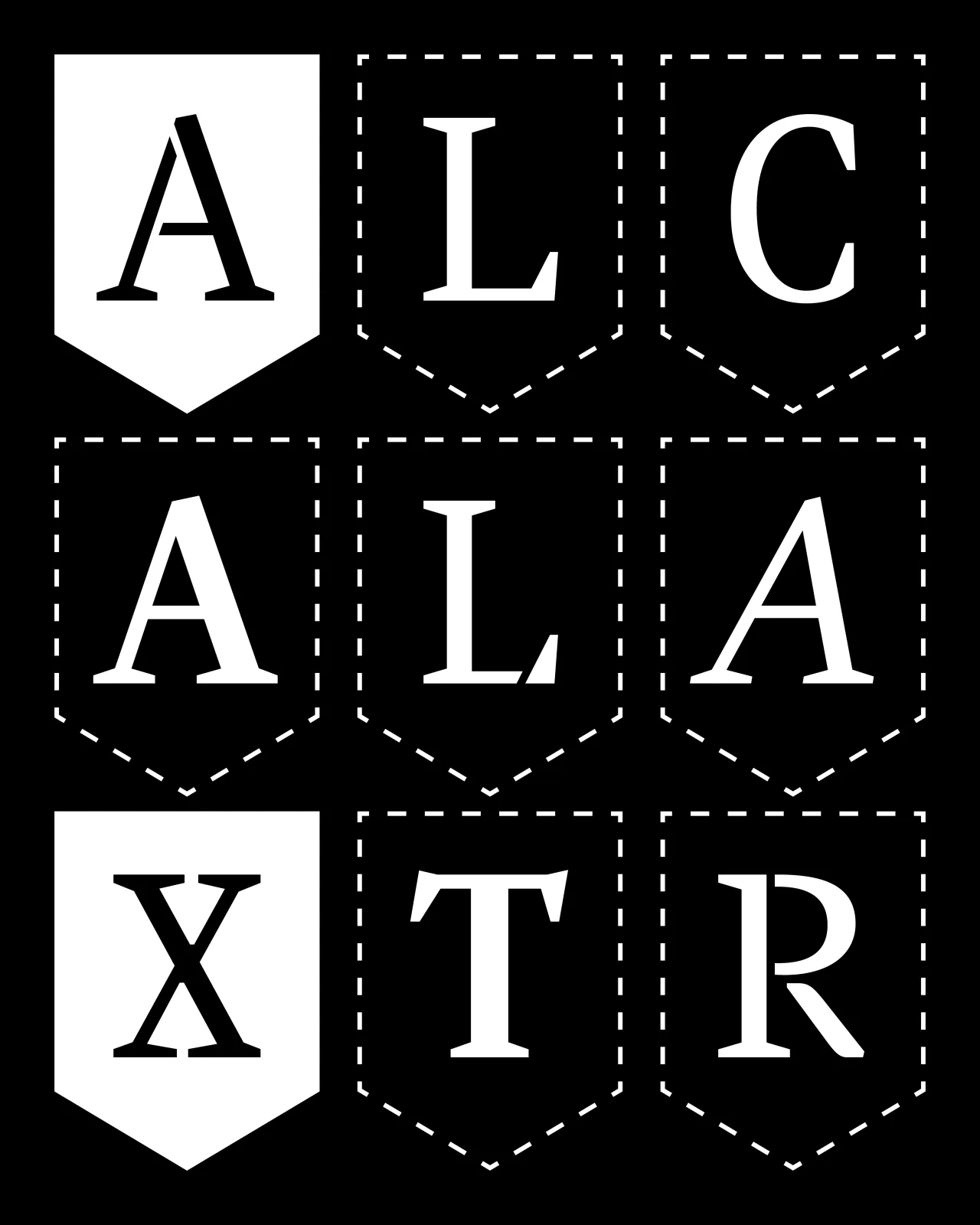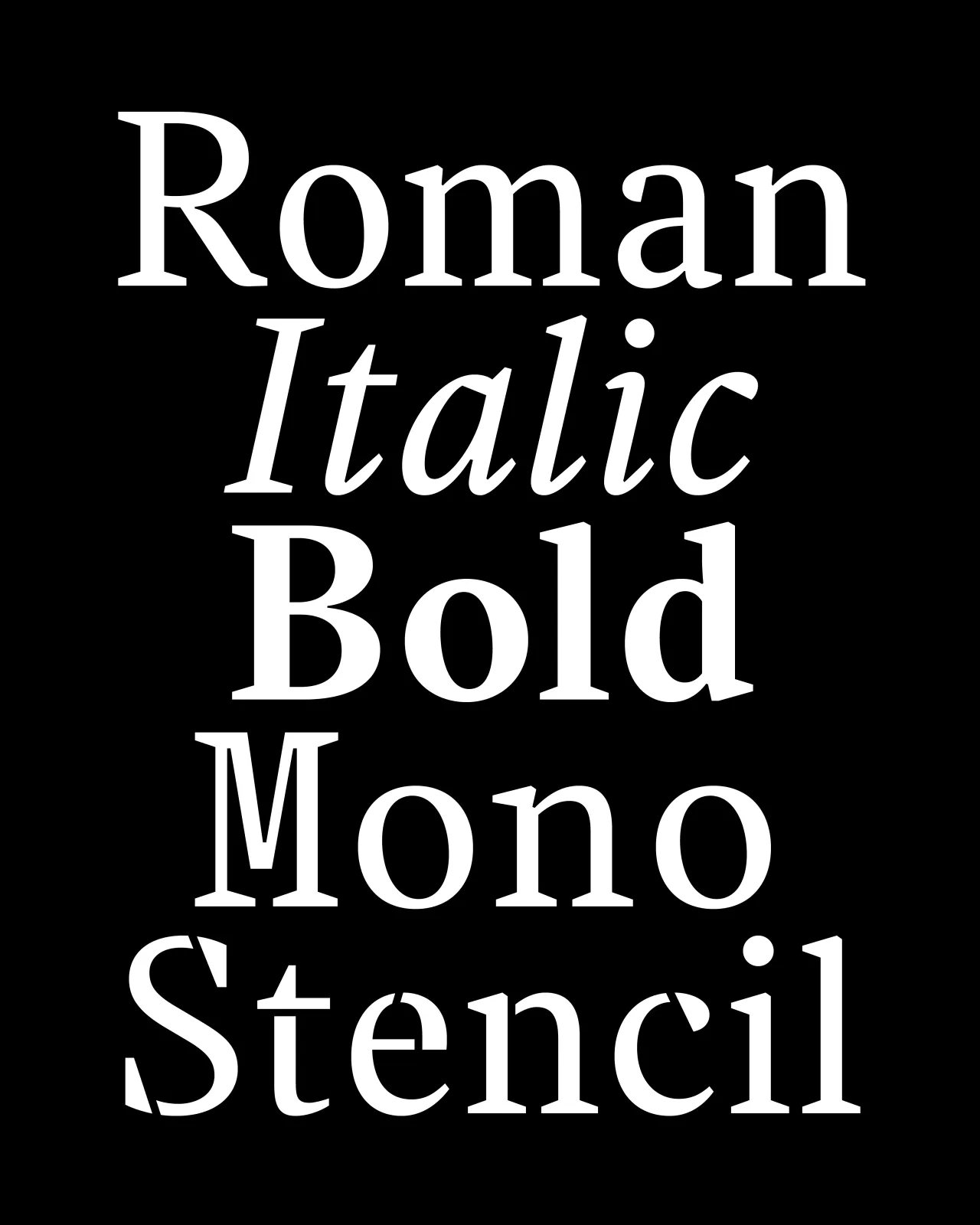
The best new typefaces for May 2026
May's new fonts have something to say, and the typographic vocabulary to say it—at any size, weight or width you care to mention.
Gotham Variable by Sara Soskolne
In global terms, much of 2026 has felt like we're teetering on the edge of a precipice. And yet at the same time the world keeps turning, and type designers are still doing what they've always done: making life that little bit better, one character at a time. And May's new releases have a pleasing breadth, from a 500-year-old Bible to a Times Square billboard, a twig in a Swiss forest to a plate of Spanish biscuits. (Yes, really.)
Dalton Maag's Deiverson Ribeiro serves up a food-themed Brazilian script with a jazz-like swagger. Sproviero pushes Art Deco into new territory. But the month's biggest moment arguably belongs to a typeface that's been around for a quarter of a century. Yes, Gotham is turning 25, and Monotype is celebrating with a variable evolution that further broadens what it can offer.
Elsewhere, Jean François Porchez launches the screen-optimised serif he started designing in 2021, Grilli Type releases its monospace industrial tool, and a botanical display font arrives from Switzerland with a philosophy borrowed from Japanese gaming. All in all, fun times are forging ahead in typeland, and there's plenty of fresh inspiration for designers to check out.
1. GT Mechanik by Shiva Nallaperumal, Reto Moser and Noël Leu
Before monospace typefaces became synonymous with code and terminals, electromechanical text systems used fixed-width type to stamp messages onto physical matter (paper, wood, metal). GT Mechanik, from Grilli Type, takes that old-school analogue logic and runs with it. Essentially, it treats the constraints of fixed-width design not as limitations but as generative principles. Abrupt joints, interrupted connections, oversized punctuation—these give GT Mechanik a sense of character that helps it embody its name.
To get a little technical, the design space is organised into three tones (Mono, Semi, and Poly), each expressing the same underlying logic at different scales and amplifications. Mono is highly mechanical, with inktraps and idiosyncratic details fully present; Semi introduces a more lilting cadence; Poly arrives at a stark, ultra-low-contrast resolution.
Significantly, those details dissolve as you move along the axis, creating a shift in character between settings. Rather than optimising for a single intended use, GT Mechanik allows designers to find the tone that suits their message.
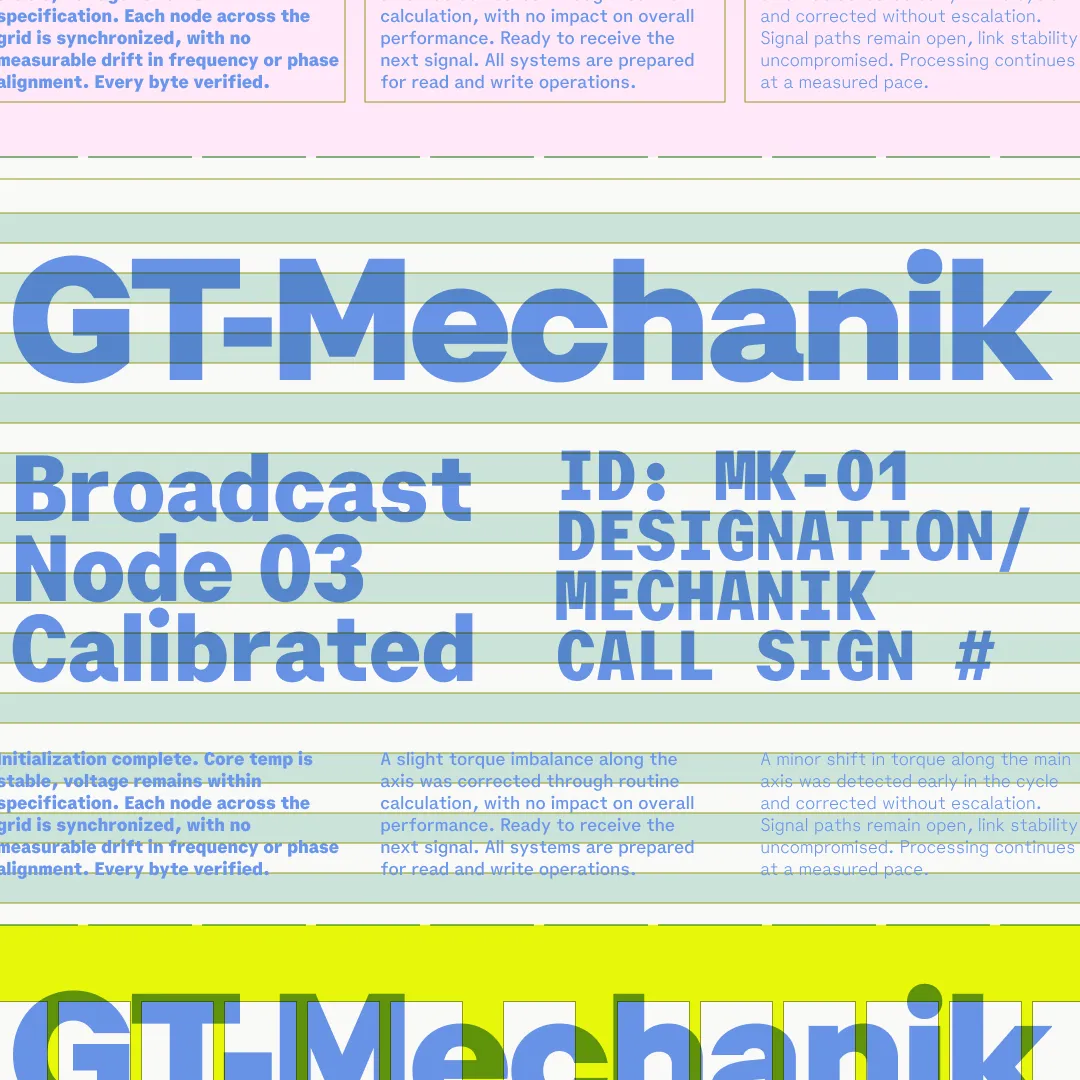
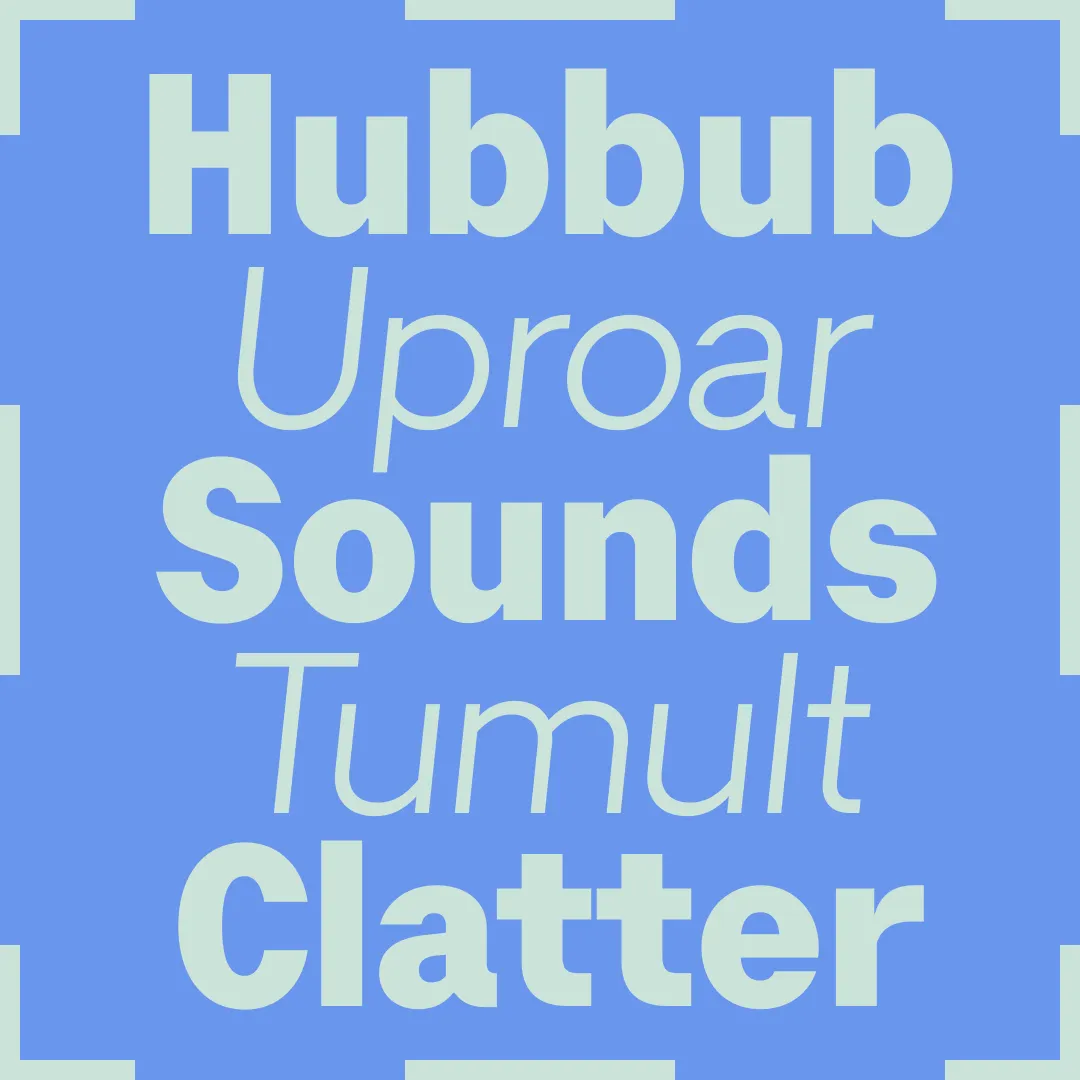
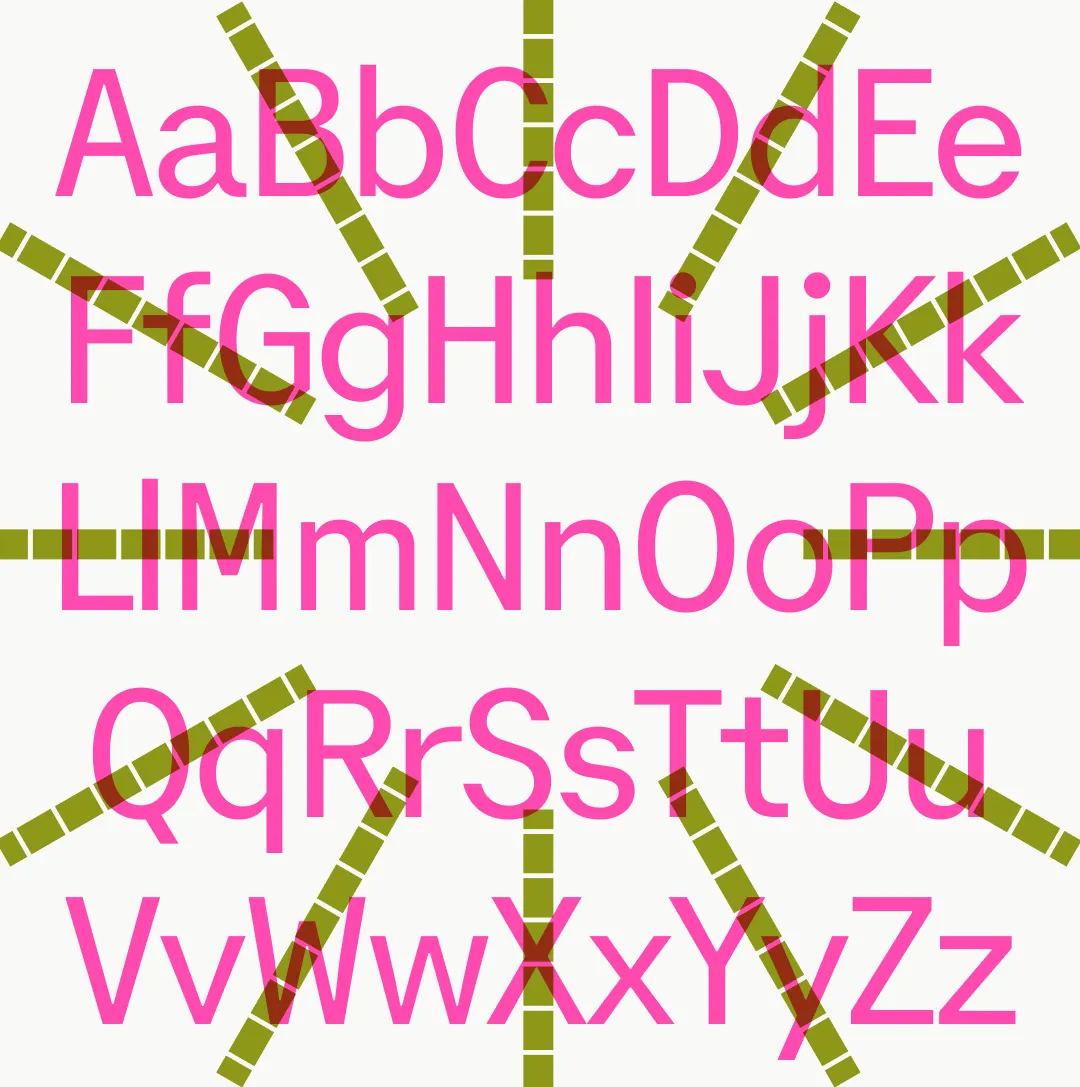
2. Gotham Variable by Sara Soskolne
Think you don't know Gotham? Trust me, you do. Originally designed by Tobias Frere-Jones in 2000, it's since been used on GQ covers, on the Obama presidential campaign posters, on Netflix, on Coca-Cola, on the sides of buildings and on the backs of buses. For a quarter of a century, it's offered authority with a friendly face; geometric confidence without coldness. But how do you evolve a typeface this iconic when the world it was designed for has fundamentally changed?
Monotype's brilliant answer to that question is Gotham Variable. Developed by Sara Soskolne, with Jordan Bell handling language support, a single-file architecture introduces continuous control across both weight and width, consolidating what was previously a large family of static files into a single system. Fifty-four new intermediate static styles introduce new shades of weight and a new Compact width, but they've been designed to feel like they always belonged.
Meanwhile, expanded language support adds Vietnamese alongside enhanced Cyrillic and Bulgarian. For brand teams operating at a global scale, this is exactly the kind of flexible, territory-spanning infrastructure they need in 2026.
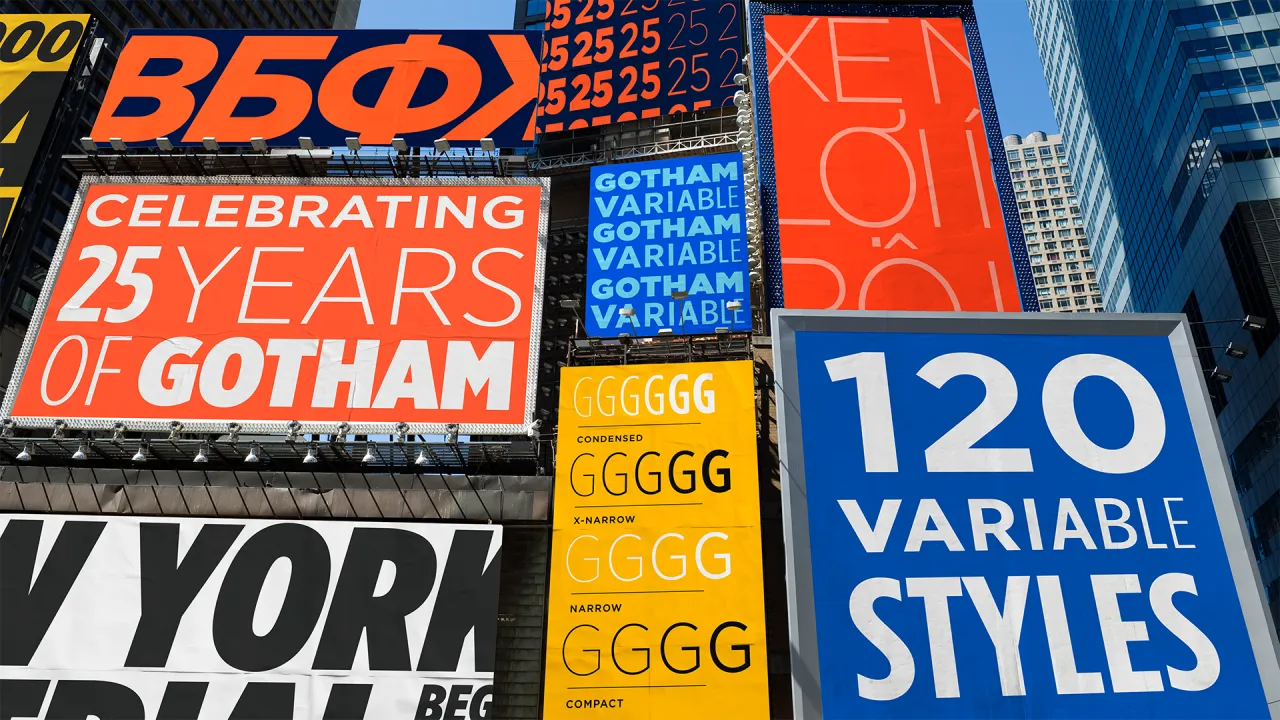
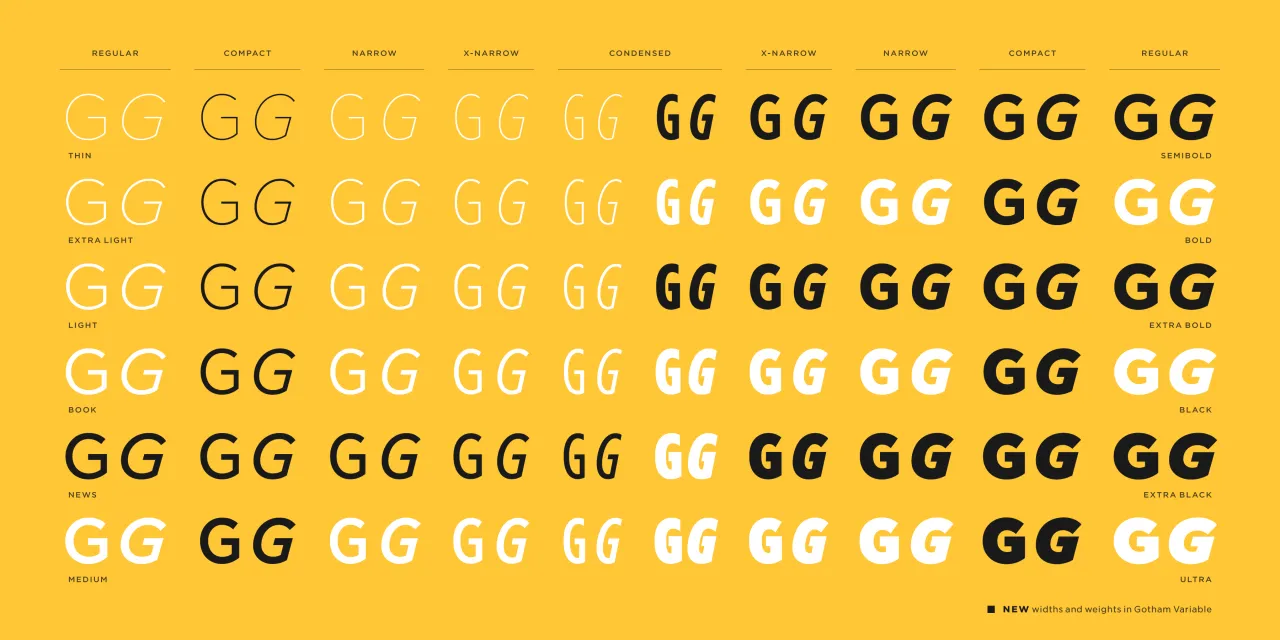
3. Ardent Pro by Jean François Porchez
Imagine you're designing a magazine that's mostly read on phones at 11pm, in bed, with the brightness turned right down. You're going to need a serif that holds up at small sizes on a glowing screen without losing its personality at headline scale. You're going to need something like Ardent Pro.
Jean François Porchez began designing it in January 2021, starting from his earlier Le Monde Journal and asking what that typeface would need to become to serve modern screen reading. The answer involved drawing wider letterforms and more open counterforms, following the research of Ladislas Mandel and Matthew Carter on legibility and apparent size. Serifs in the italics (an unusual, but actually sensible choice) serve readability on screen, rather than print conventions. And although I'm still pining for the days of ink on paper, even I have to admit: it's about time too.
More broadly, the font draws on a rich historical lineage: Elzevirs, Albertus, Vendôme, Meridien, even Verdana. Angular and triangular shapes sit alongside round terminals and both bracketed and unbracketed serifs, creating what Jean describes as a typeface that reveals subtle contrasts invisible at small sizes but gives graphic projects a distinct identity at large ones. It's been five years in the making, and it shows (in a good way).